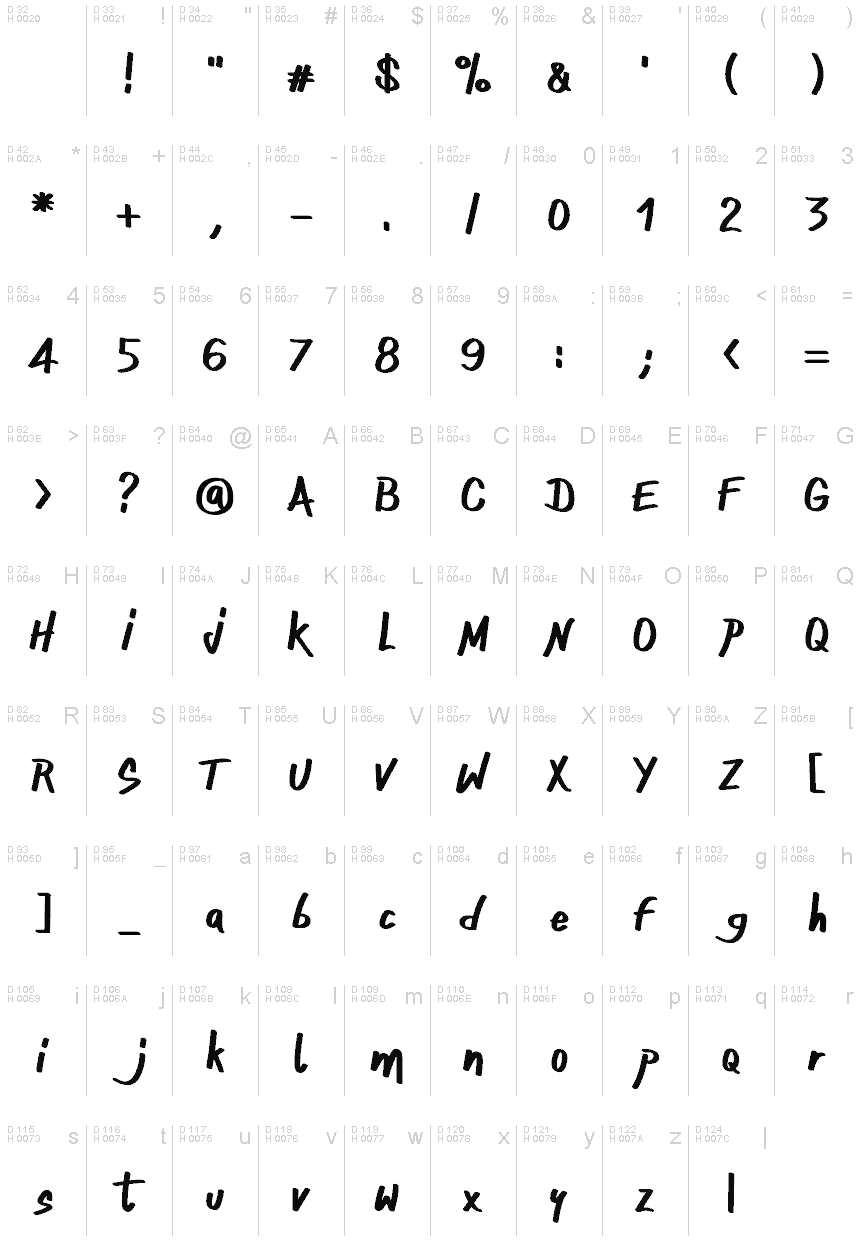
ONEFINGER_CRE
One Finger CRE is a bold, handwritten font that exudes a raw, organic energy. Crafted by designer Fred Cre, this typeface showcases a captivating blend of fluidity and grit. Its bold, brush-like strokes and irregular edges lend a dynamic, heartfelt aesthetic that immediately captivates the viewer.
This font's versatility shines through its ability to seamlessly transition between playful, expressive applications and more refined, sophisticated contexts. Whether in branding, editorial design, or creative typography, One Finger CRE possesses the power to infuse any project with a distinct, memorable personality.